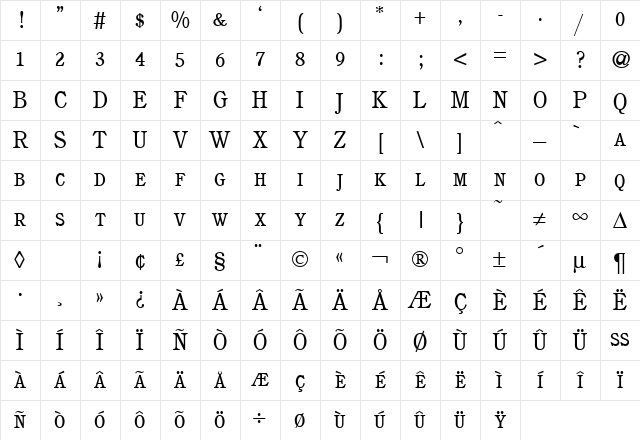
CushingNovaSmc Regular
Design Context for CushingNovaSmc
CushingNovaSmc is a composed and adaptable typeface that performs quietly and consistently across a wide range of design contexts.
Pro Tip: Use CushingNovaSmc in both headline and body roles to test its range before committing to a single application.